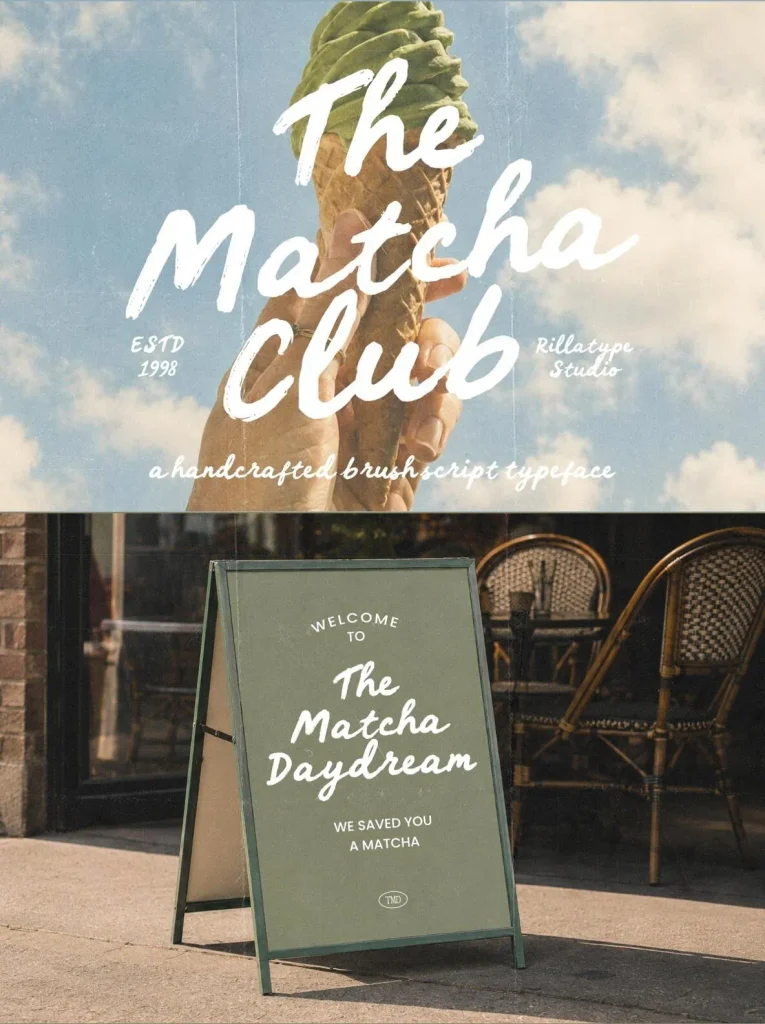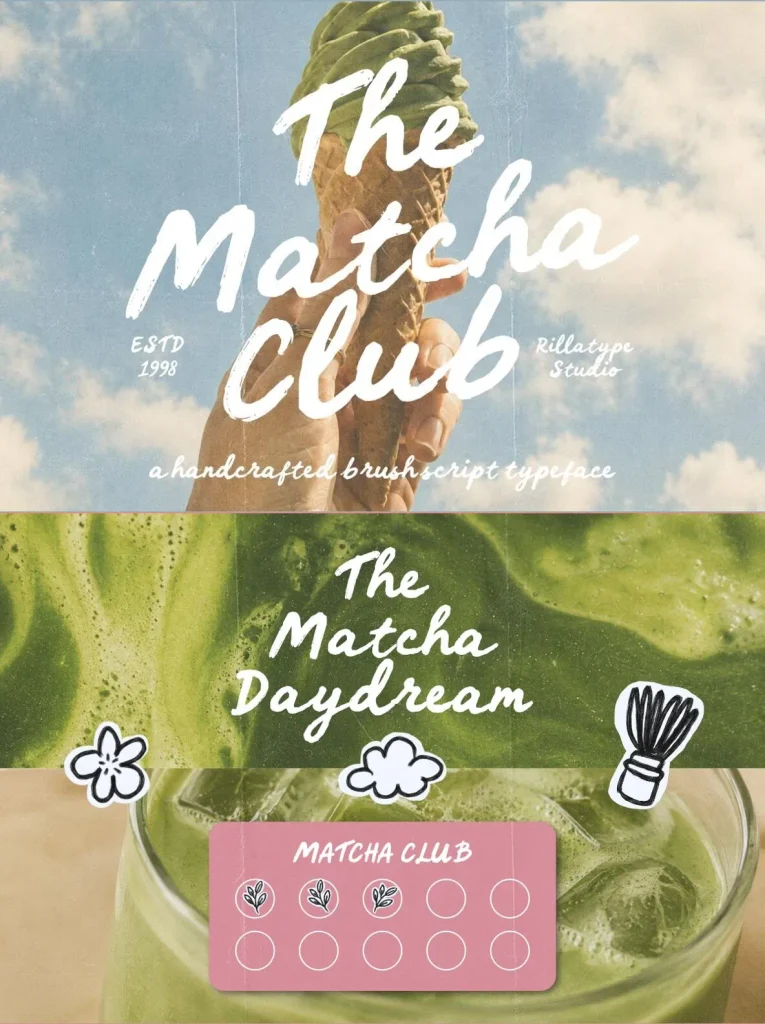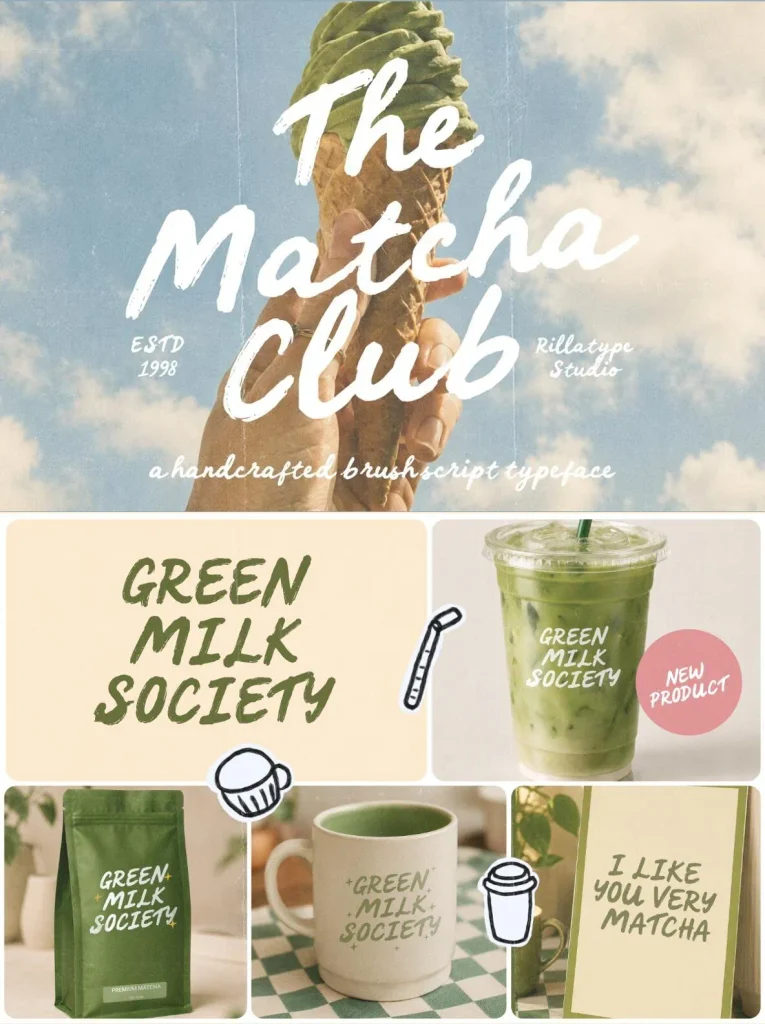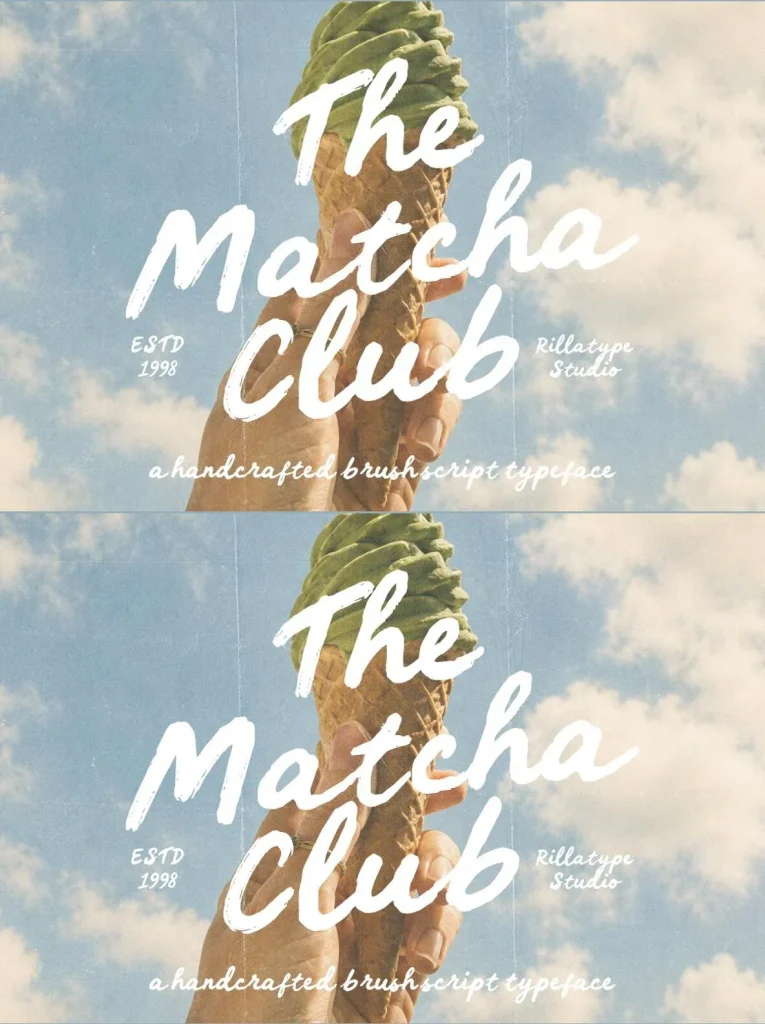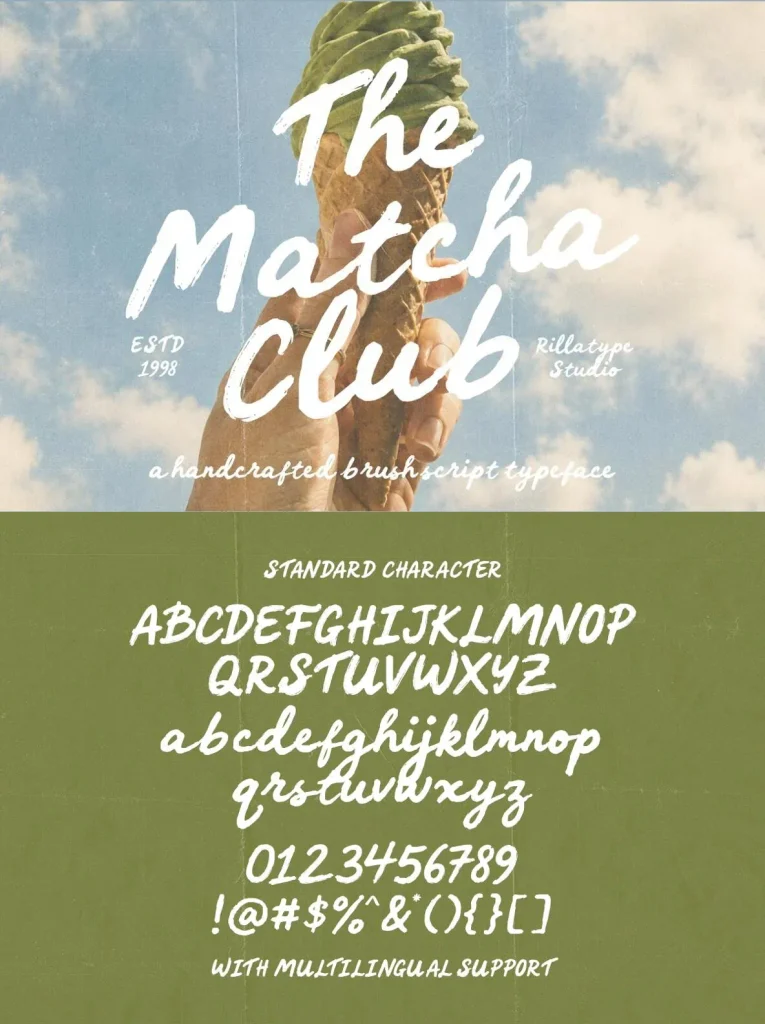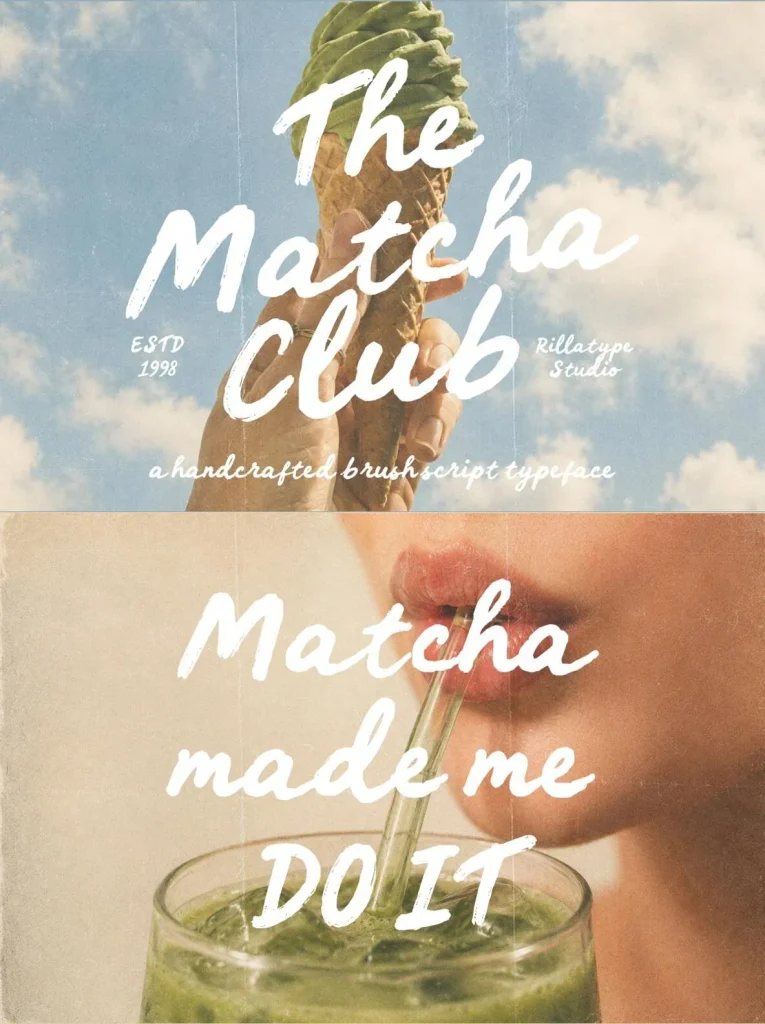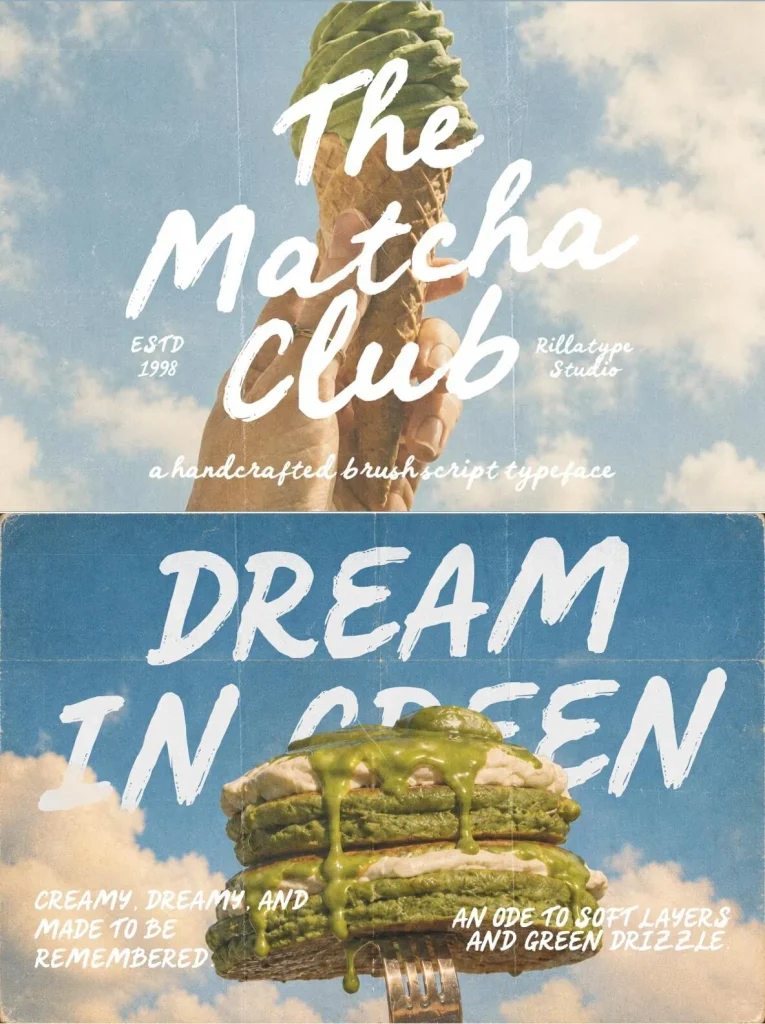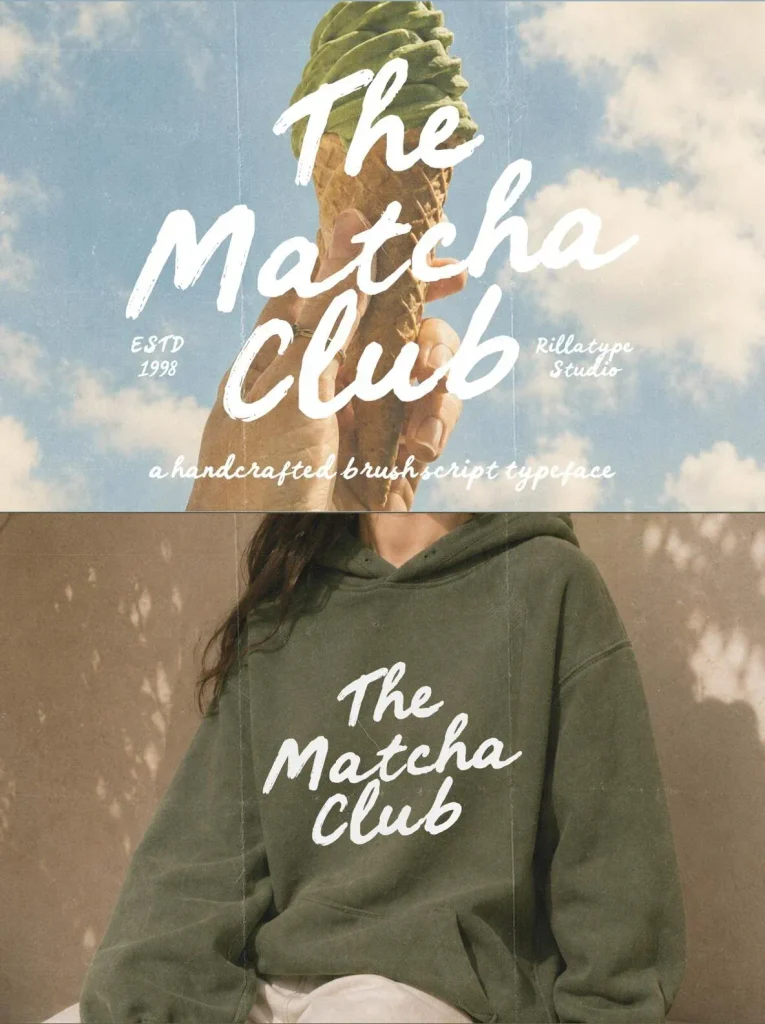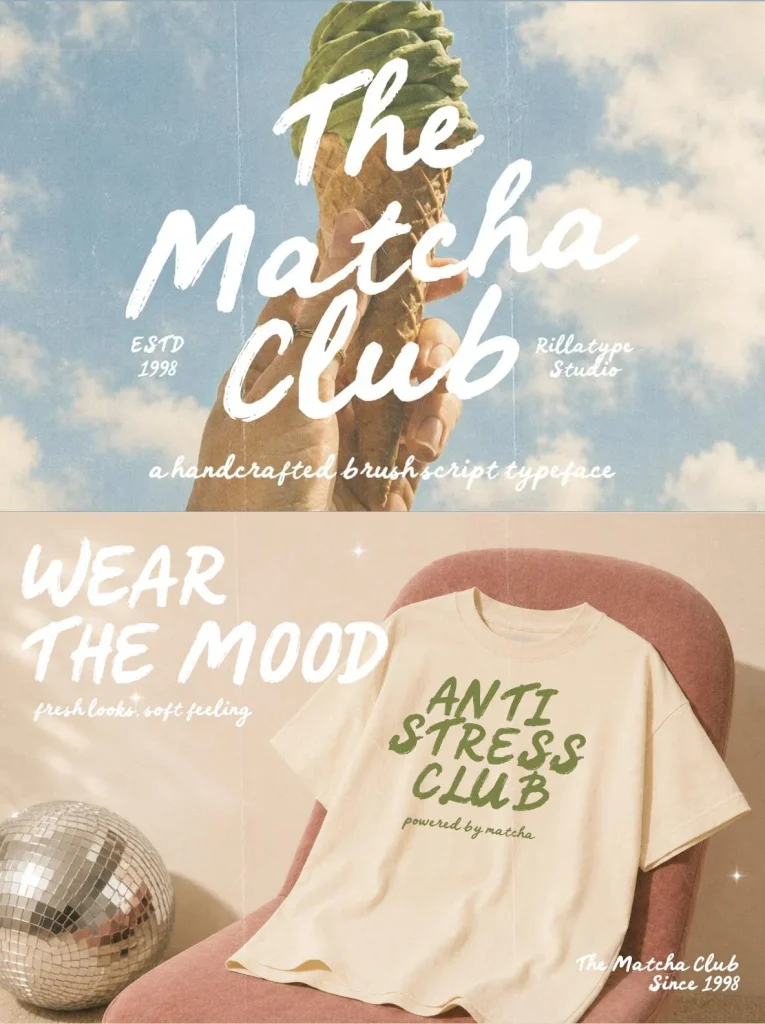
The Matcha Club — Café Brush Energy
The Matcha Club is a bold handwritten brush font made for cozy café branding, retro lifestyle posters, playful packaging, and fresh drink culture. Its chunky brush strokes, natural handwritten flow, and expressive letterforms give design projects a fun, friendly, and eye-catching personality. The style feels casual and handmade, yet it has the visual strength needed for clear display typography, standout headlines, and confident brand identity work.
Use The Matcha Club for logos, café menus, matcha and tea branding, food packaging, drink labels, merchandise, stickers, posters, social media posts, product mockups, and bold display typography. Whether you are shaping a cozy café brand, a playful food business, a retro-style poster, or a stylish lifestyle product, this brush font adds a warm, fresh, and memorable handwritten touch.
Uppercase letters
Lowercase letters
Numbers
Punctuation
Multilingual support